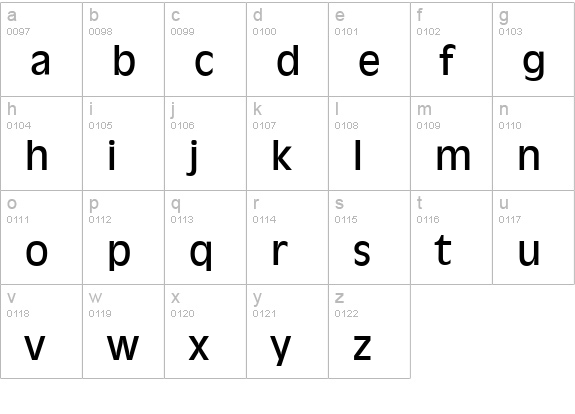
RavennaSerial-Medium-Regular is a balanced, medium-weight variant in the RavennaSerial typeface family \xE2\x80\x94 well suited to sub-headlines, navigation, and balanced editorial work.
RavennaSerial-Medium-Regular is a versatile and modern font that exudes elegance and sophistication. Its clean lines and balanced proportions make it perfect for a wide range of design projects, from branding to editorial design. The medium weight strikes the perfect balance between boldness and readability, making it ideal for both headlines and body text. This font is freely available to download at FontsMarket.com, allowing designers and creatives to access this high-quality typeface at no cost. With its timeless appeal and versatility, RavennaSerial-Medium-Regular is sure to elevate any design project and leave a lasting impression on viewers.